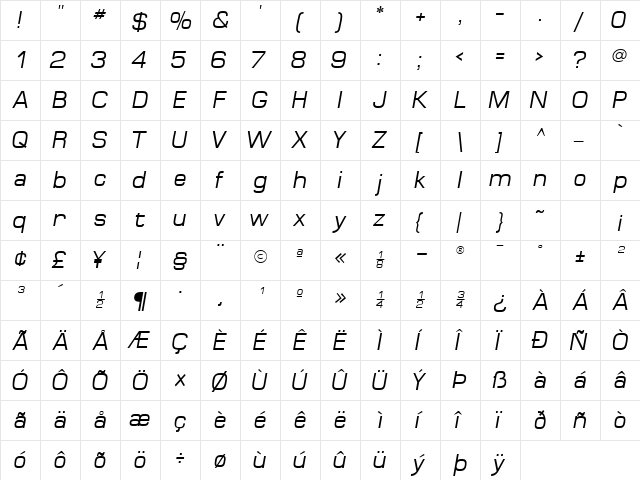
MinimaSSK Italic
Design Context for MinimaSSK Typeface
MinimaSSK takes a measured approach to typography — its balanced proportions and neutral character make it a reliable workhorse for both digital and print work. The slanted form adds forward momentum and visual energy.
Pro Tip: Try MinimaSSK for annotation and caption copy alongside an upright companion — the contrast in angle creates a dynamic but ordered typographic system.